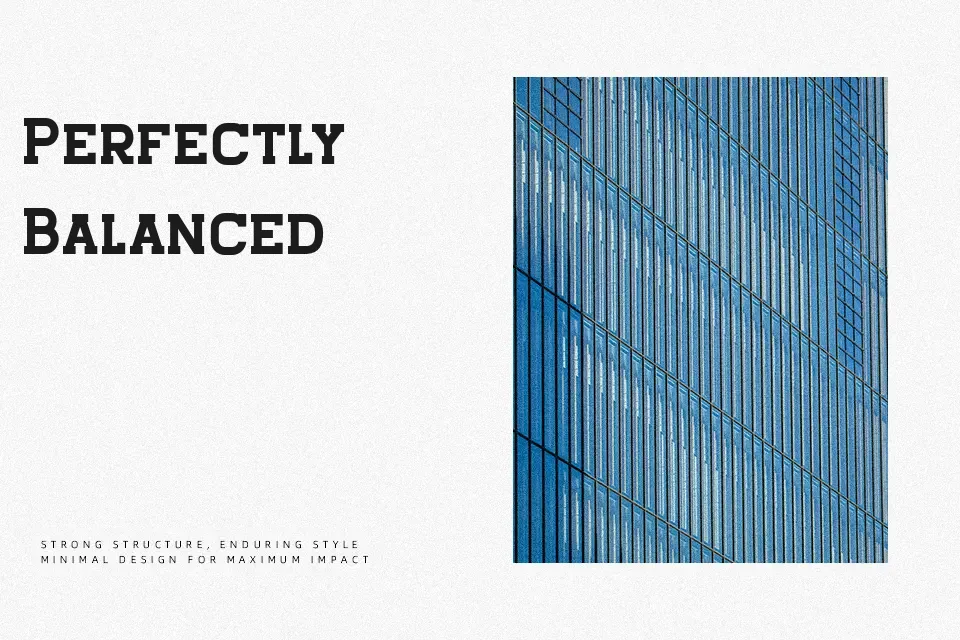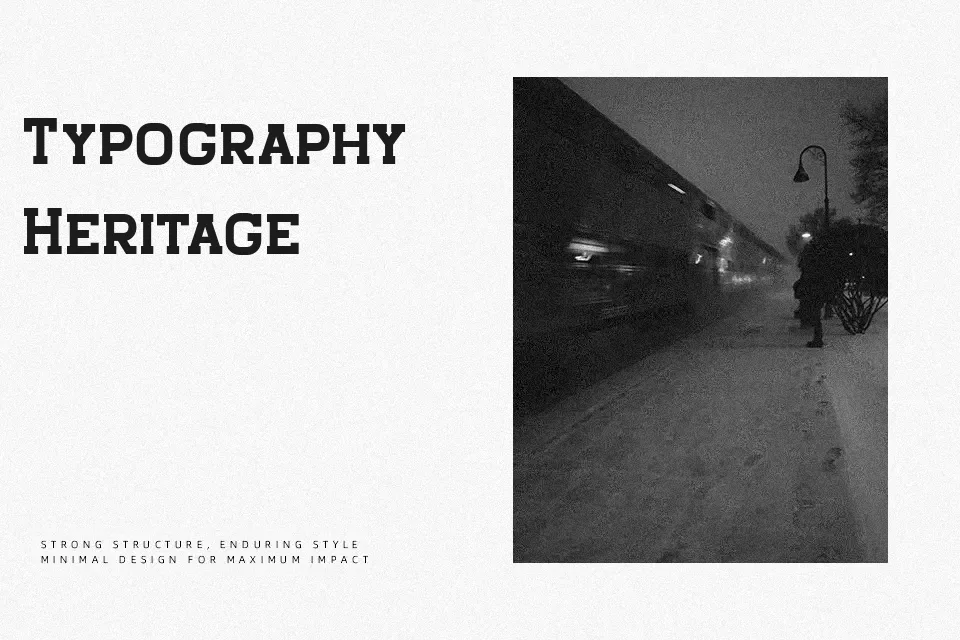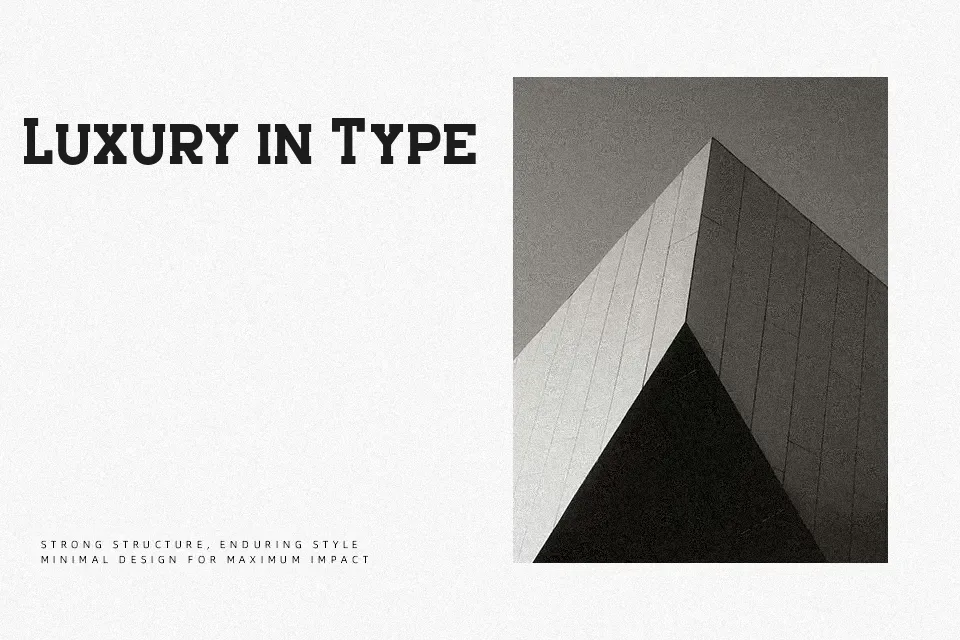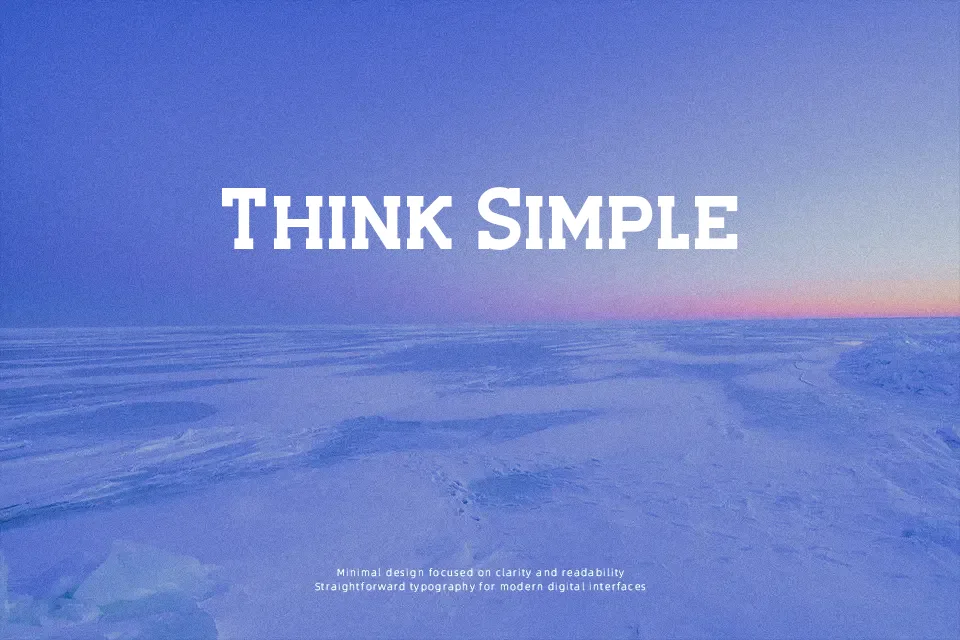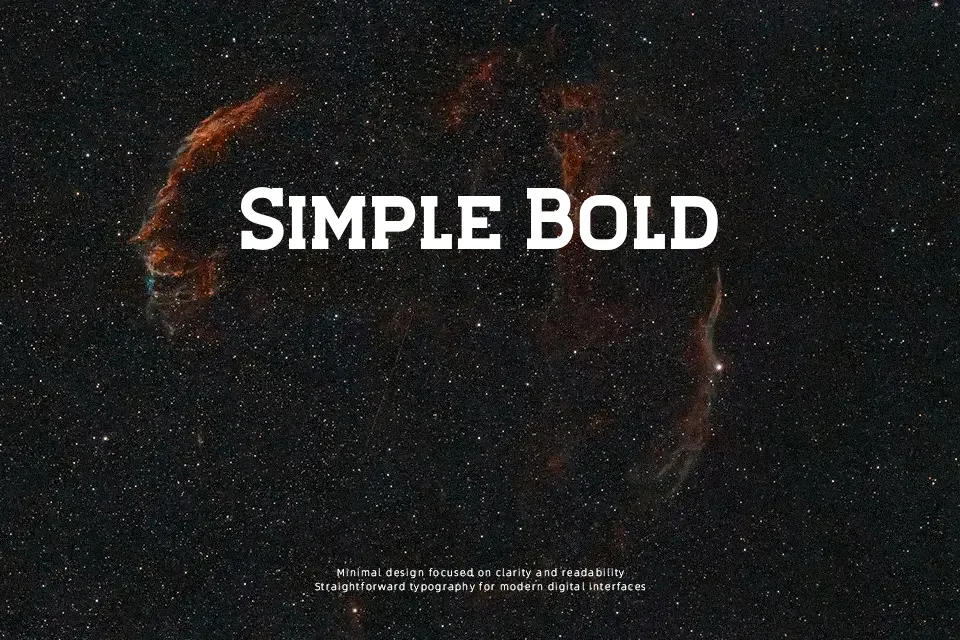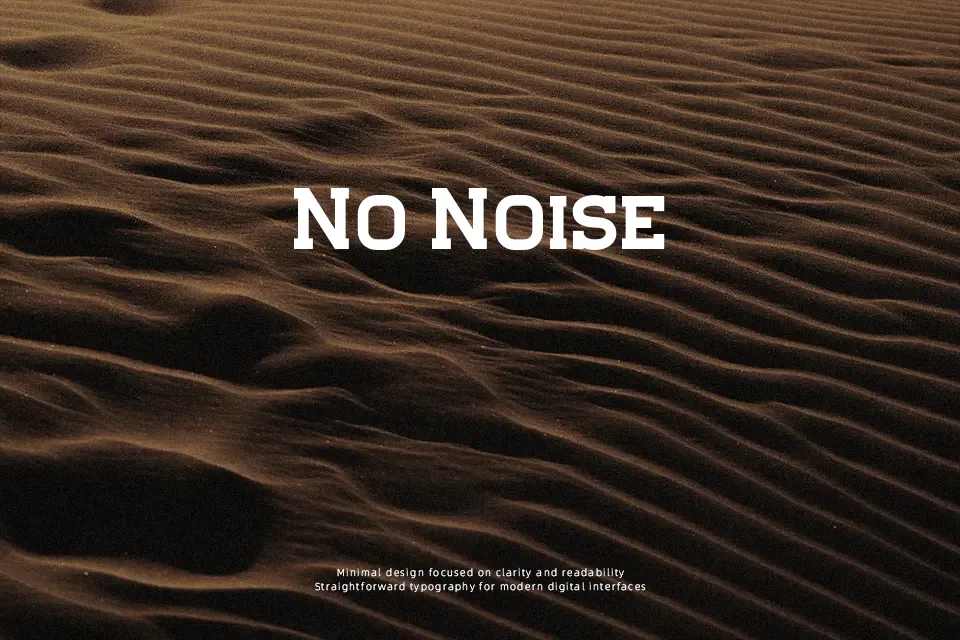
Stengkol Font
Designed by ViactionType
Stengkol Font delivers an authoritative visual presence rooted in classic western display typography, featuring solid rectangular slabs and unyielding, heavy stroke weights. The letterforms exhibit a broad stance with balanced, deliberate character spacing that prevents dense letter collisions at substantial display scales. Pronounced horizontal serifs and square terminals establish an unmistakable rhythmic cadence across uppercase compositions. While the robust construction ensures instant legibility on billboard headlines, t-shirt prints, and thematic restaurant signage, the sheer density of the strokes becomes overwhelming in extended body paragraphs. At small caption sizes, the tight interior counters fill in, confirming this typeface functions best exclusively as a dedicated headline choice.
Best For: vintage poster headlines, western apparel graphics, craft beverage packaging, thematic restaurant signage
Not Ideal For: extended body paragraphs, mobile interface labels, small book captions, dense editorial layouts